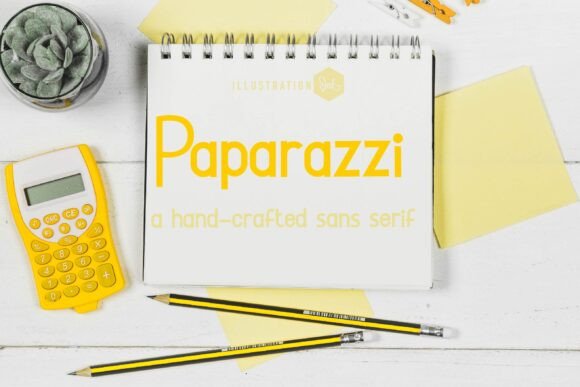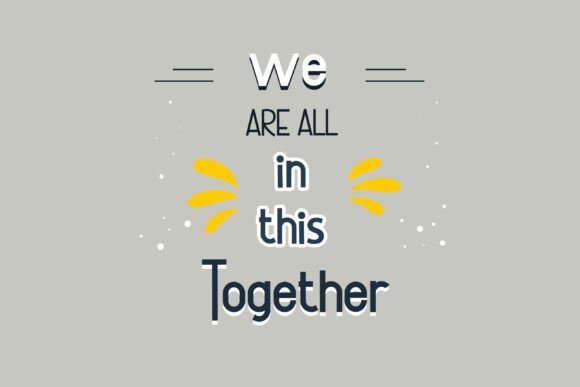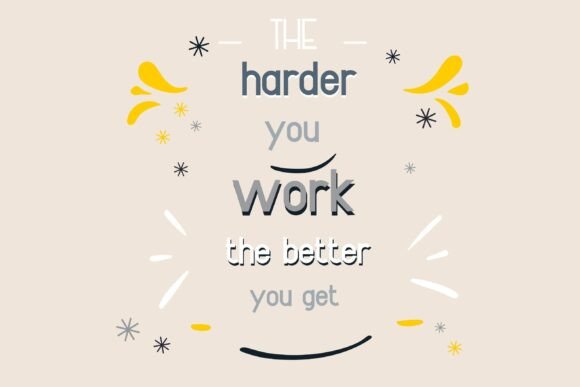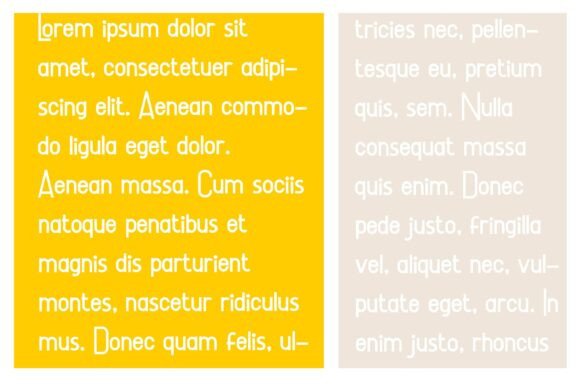
Paparazzi Font
About the Paparazzi Font
Explore the possibilities with Paparazzi Font, a font that offers both beauty and functionality. This hand-crafted sans serif is a typical sans serif with an uppercase that hangs below the baseline.
Paparazzi’s playful, slightly quirky lowercase and its distinctive, low-hanging uppercase make it ideal for headlines, short text blocks on posters, and branding elements needing a touch of personality. It works well for packaging designs that aim for a handcrafted feel, particularly in the food or lifestyle sectors. However, its less-than-optimal x-height renders it unsuitable for body text or UI elements requiring high legibility.
Pairing Paparazzi with a clean, geometric sans-serif like Montserrat for body text creates a strong contrast, balancing its hand-drawn charm with modern clarity. Alternatively, a classic serif like Garamond can add a touch of sophistication, softening the playful energy. For a bolder statement, consider pairing it with a script font like Allura, but use it sparingly to avoid visual clutter.
The font’s overall personality is best described as friendly and approachable, yet undeniably stylish. It’s a good choice for brands aiming for a youthful, energetic image with a touch of handmade authenticity.